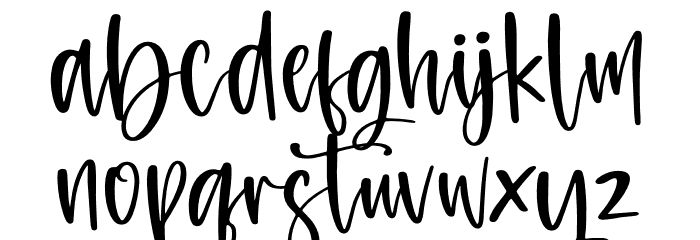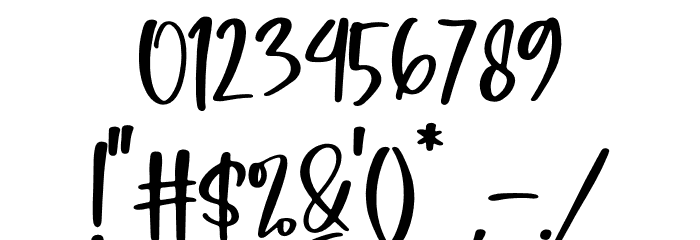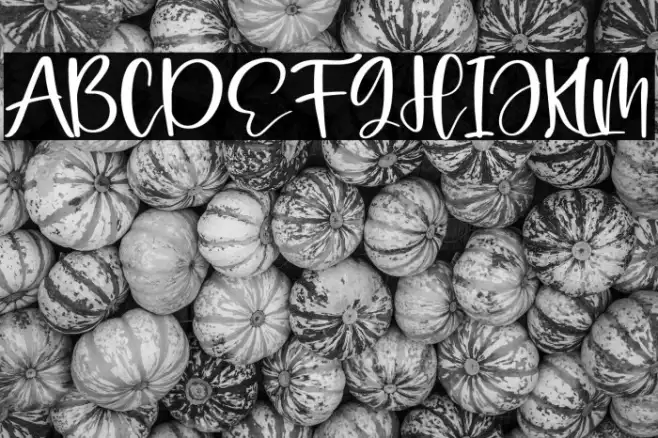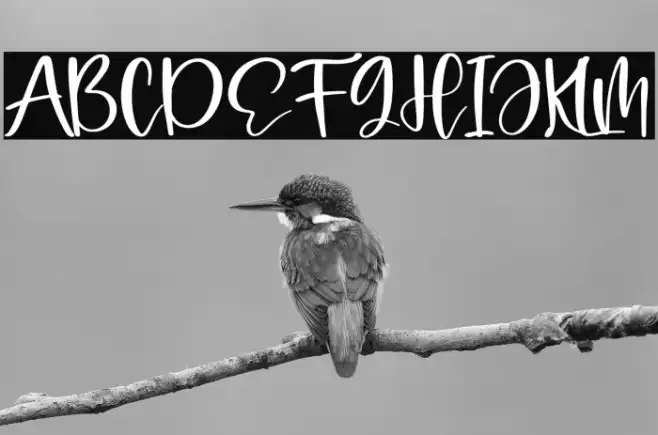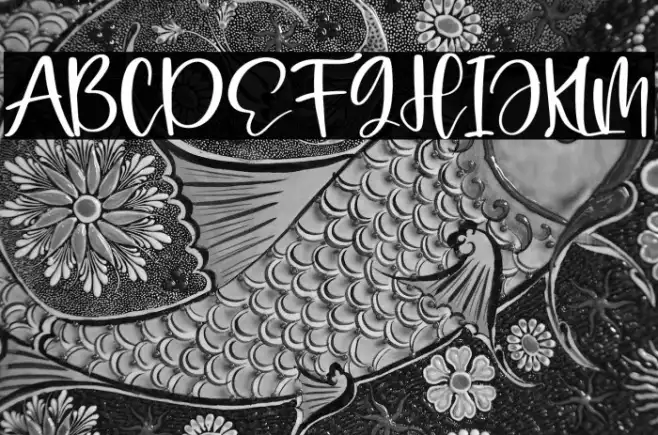
Mastelo Font
This font features a lively and expressive handwritten style, characterized by its fluid and dynamic letterforms. The uppercase and lowercase letters exhibit a playful yet elegant appearance, with varying stroke widths that add a sense of movement and personality. The numerals and special characters maintain the same energetic style, making them cohesive with the alphabet. This font is perfect for projects that require a personal touch, such as invitations, greeting cards, or branding materials. Its unique style ensures that it stands out while remaining legible and stylish.
A lively and expressive handwritten font with dynamic letterforms.
- Font: Mastelo
- Proposed Projects: Ideal for invitations, greeting cards, branding, and any project needing a personal touch.
- Category: Handwritten
- Use Case: Logos, Headlines, Invitations